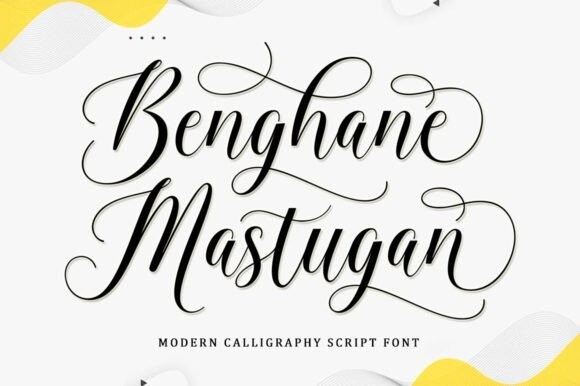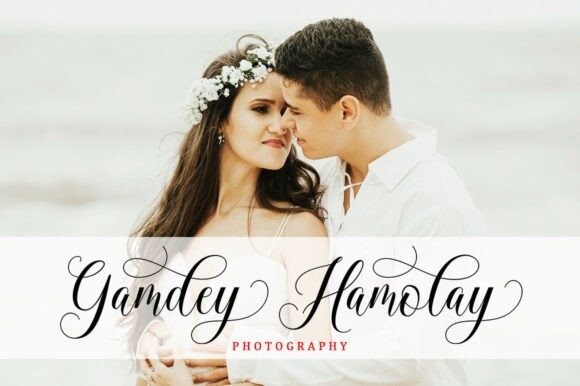
Benghane Mastugan Font
Benghane Mastugan is a Modern Script font that comes with a very beautiful character change, a classic copper decorative script type with a modern touch, designed with great detail to present an elegant style.